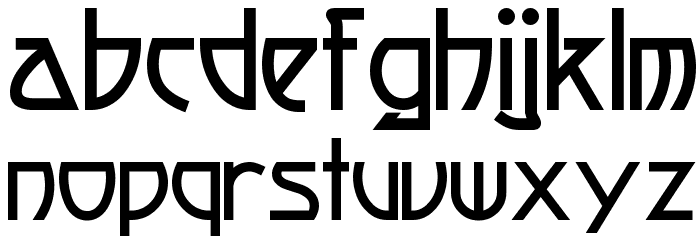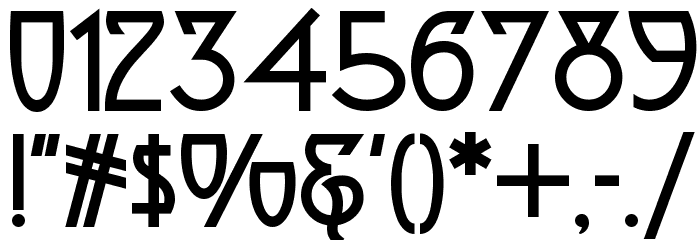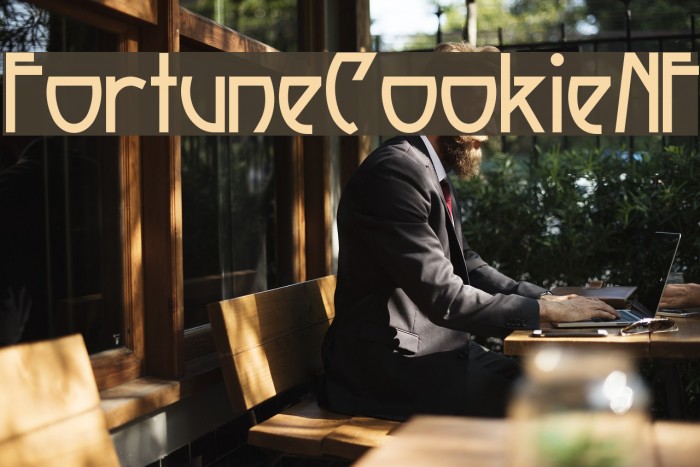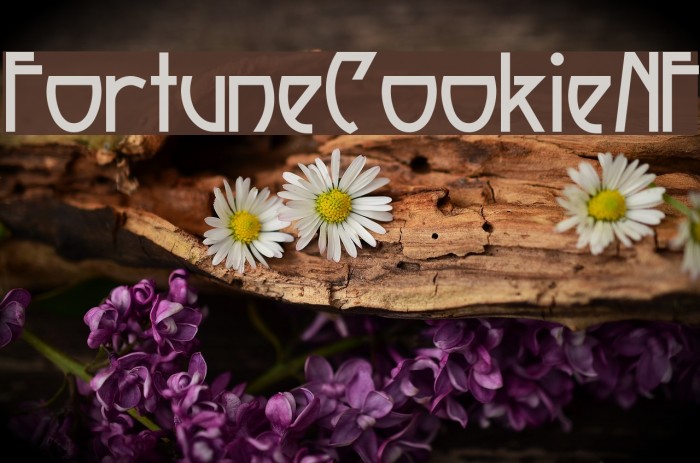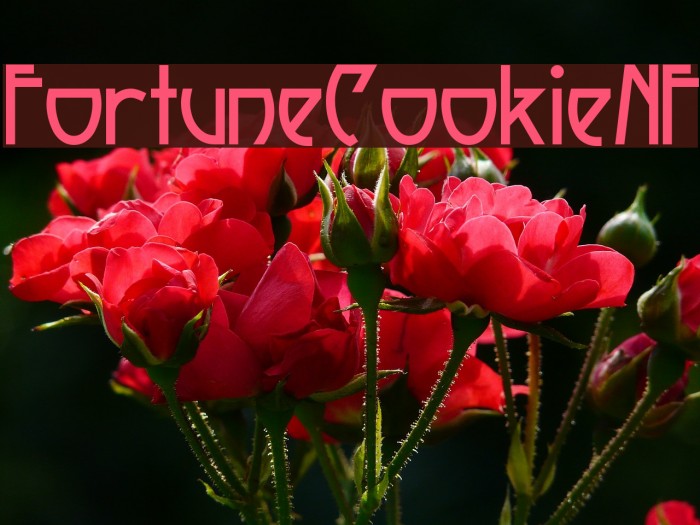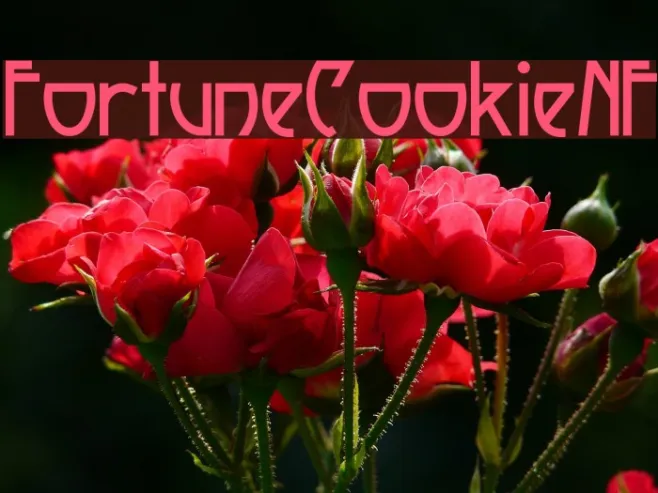
FortuneCookieNF Font
This font features a unique and artistic design with angular and geometric elements. The uppercase letters are bold and striking, characterized by sharp angles and distinctive shapes that give them a futuristic and edgy appearance. The lowercase letters maintain a similar style, with a slightly softer touch, providing a harmonious balance. Numbers and special characters follow the same design principles, ensuring consistency across all elements. The font's overall aesthetic is modern and dynamic, making it suitable for projects that require a bold and creative touch.
A bold, angular font with a futuristic and artistic design.